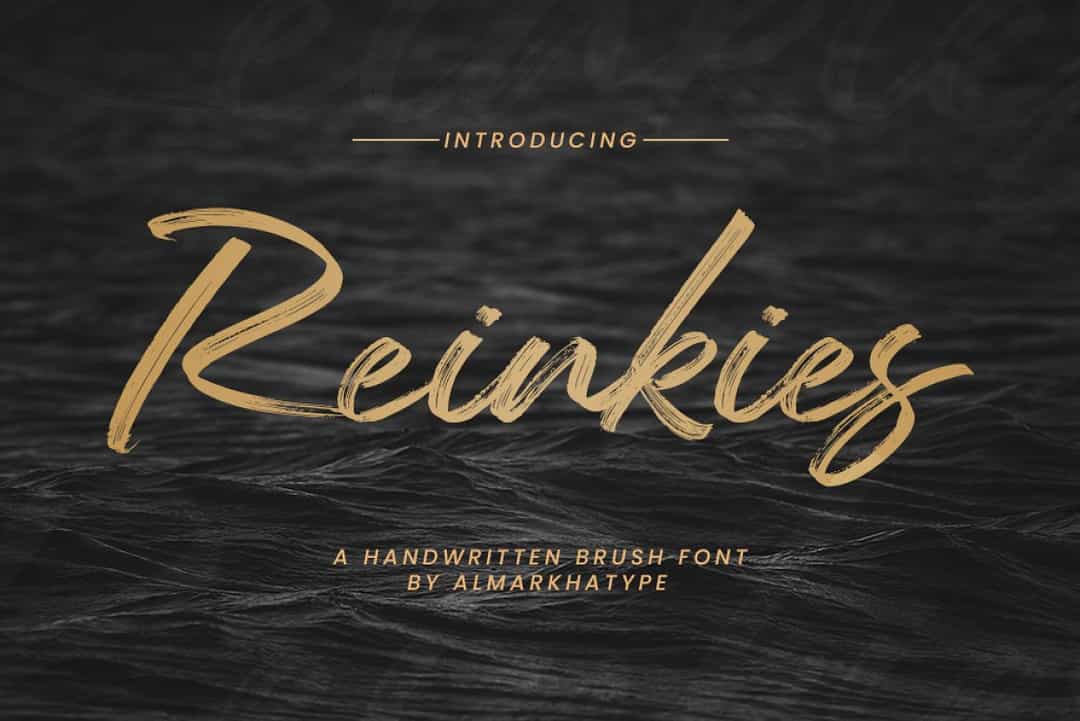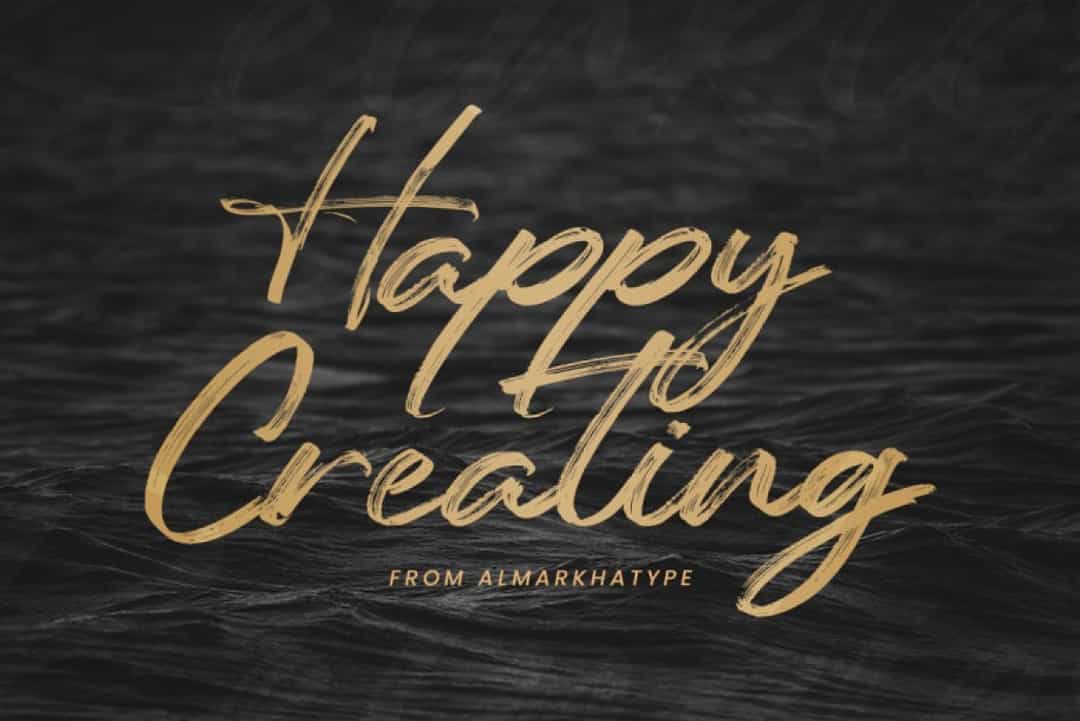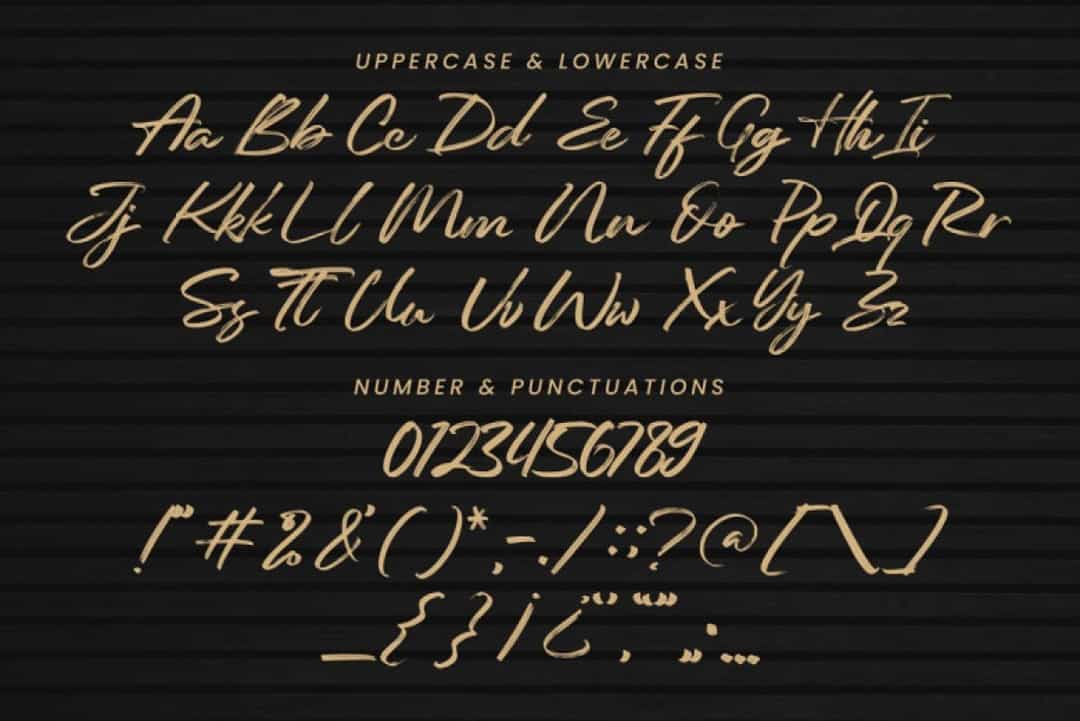
Reinkies is an elegant real brush script font designed for casual and fast writing. Brushes are used to form letters on paper before being carefully scanned in vector format – providing Reinkies with its characteristic charming authenticity and natural feel – giving your text an appealingly authentic appearance and providing content with an ‘authentic’ feel.